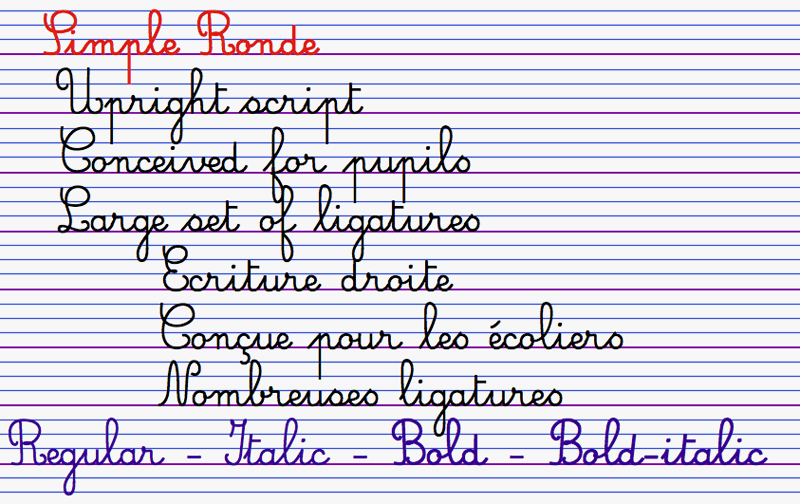
Font name: | Simple Ronde |
Author: | JBFoundry |
Simple Ronde is conceived for young pupils. This upright script is based on the french use at primary schools. A large set of ligatures make the links between characters more natural, specialy with o, b, v and w. You can buy bold, italic,and bold-italic on Myfonts : http://new.myfonts.com/fonts/jbfoundry/simple-ronde/ For a commercial use, go there : http://new.myfonts.com/fonts/jbfoundry/simple-ronde/ |